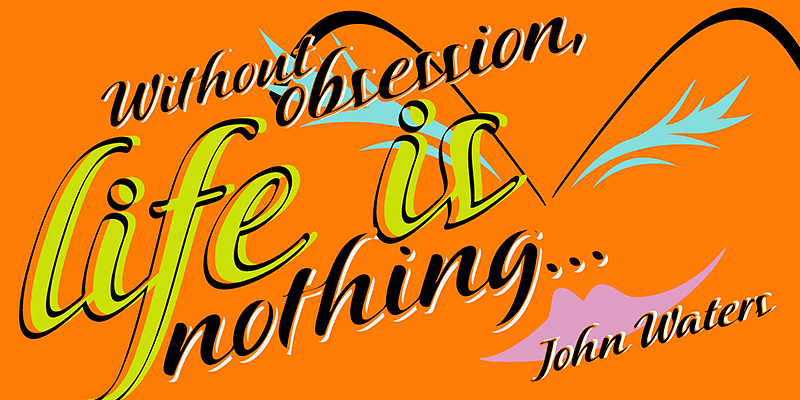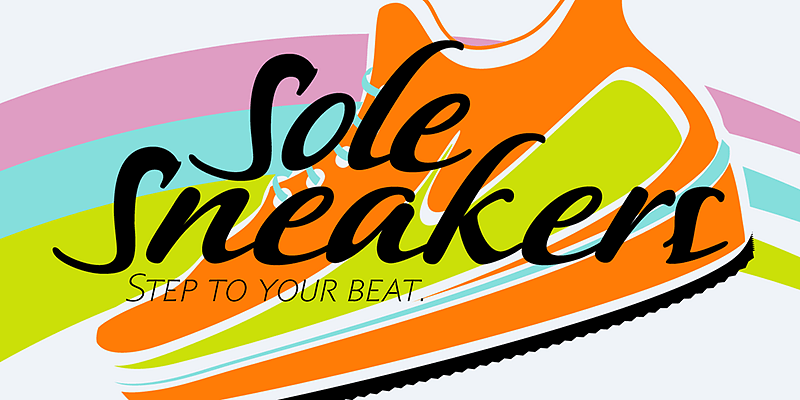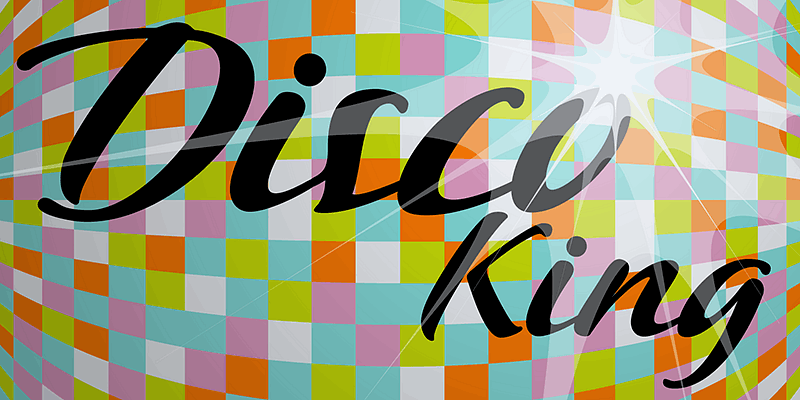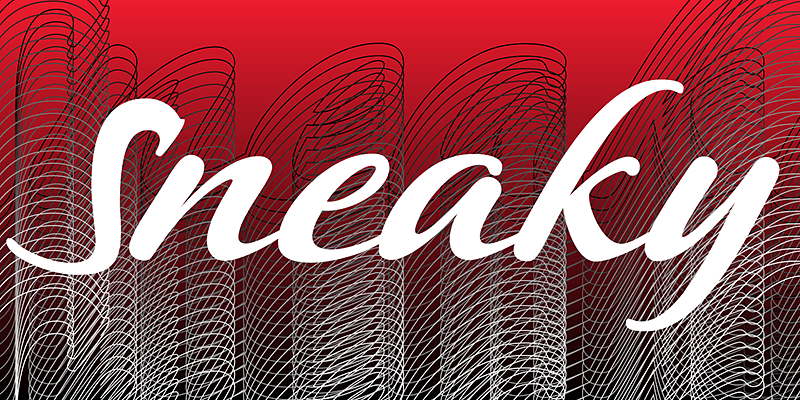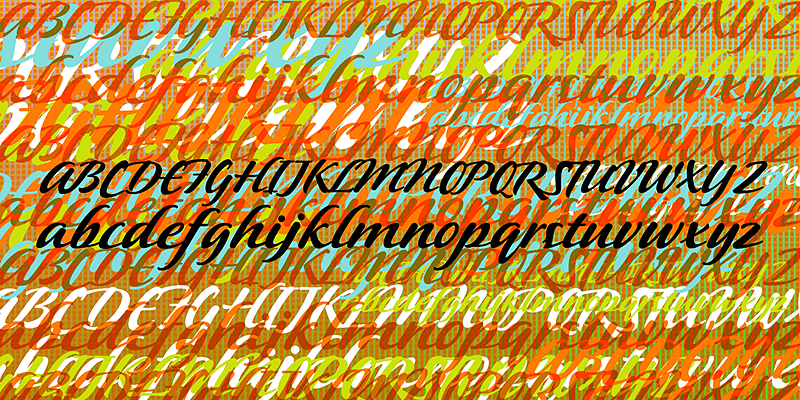
P22 Sneaky is a connecting-script by lettering Artis Michael Clark which has a flow and casual elegance. Sneaky Pro features over 500 glyphs with alternates and a Central European character set.